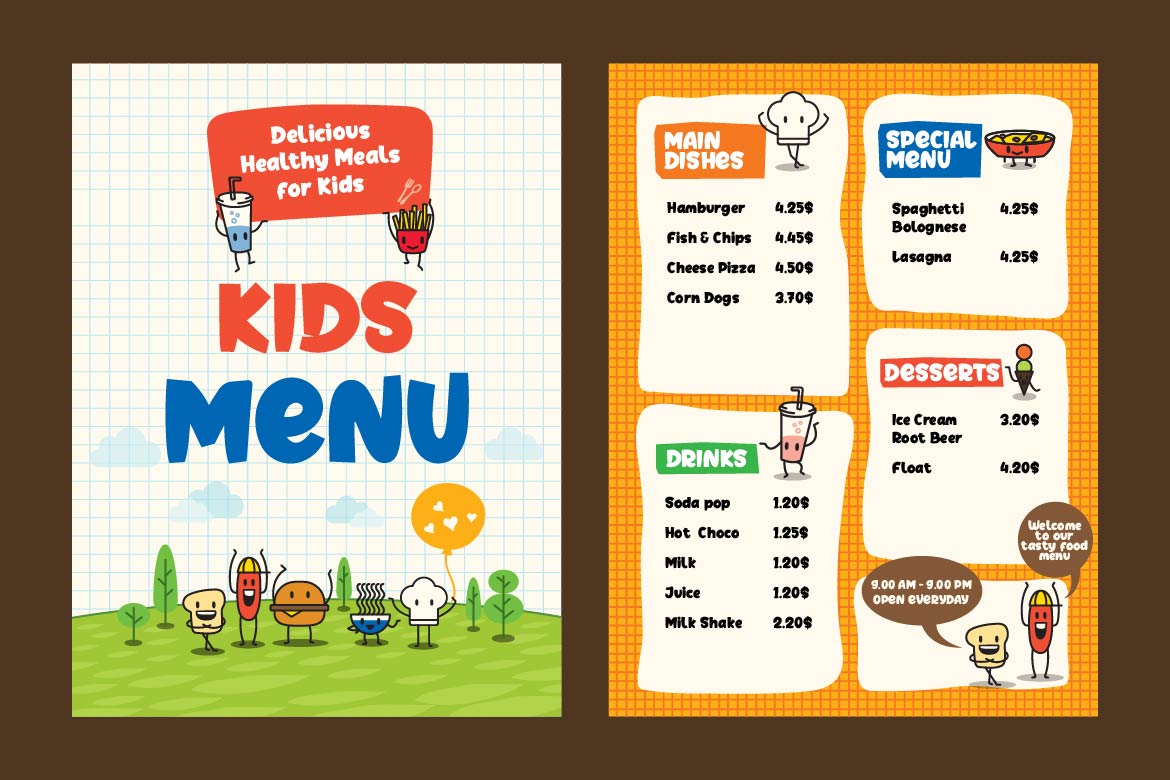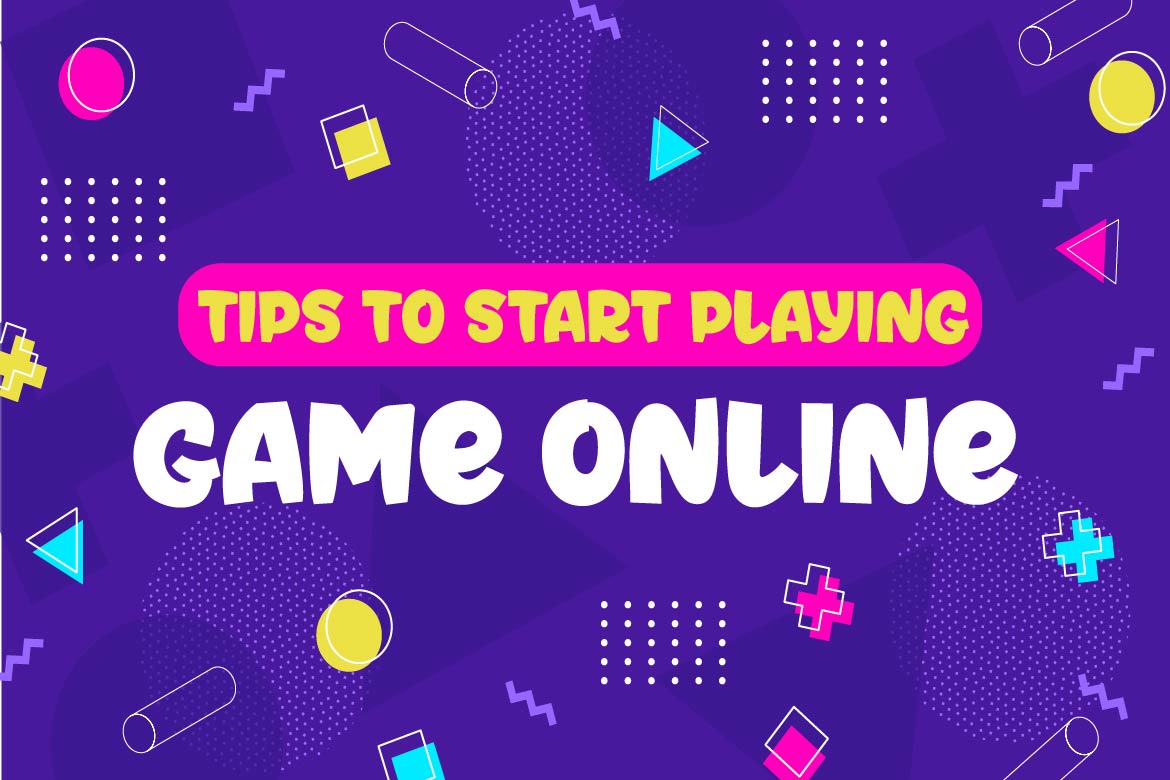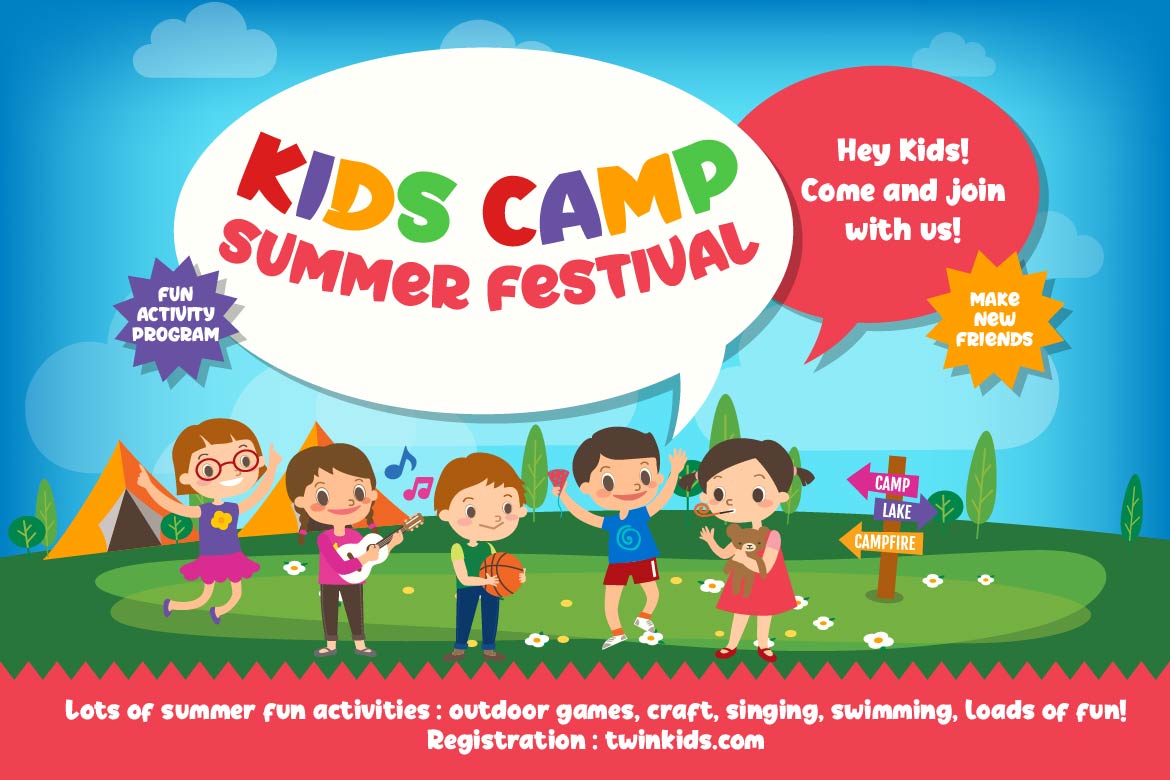
Nort Right Font
Nort Right Display Font
This typeface will make your projects regarding games, children, and special events stylish, professional, and perfect, anesthetizing all audiences with their graphic display adaptability.
This font is perfect for games, sporting events, branding, banners, posters, movie titles, book titles, quotes, logotypes, and more.
of course, your various design projects will be perfect and extraordinary if you use this font because this font is equipped with a complimentary font family, both for titles and subtitles and sentence text, start using our fonts for your amazing projects.